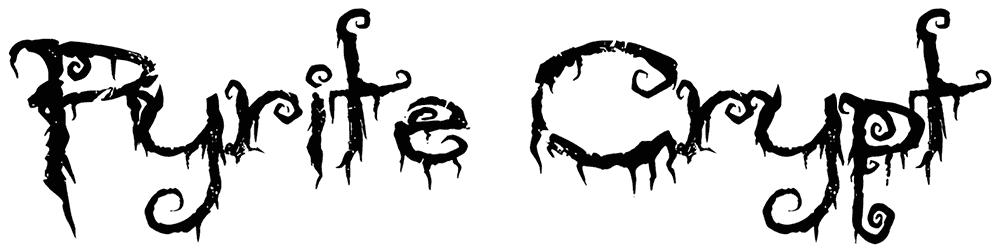
Pyrite Crypt Font
If you are looking for a well-designed horror font, the Pyrite Crypt might be an excellent choice. This witch font has a scary theme and shines in the viewer’s eye.
The Pyrite Crypt can be helpful in several cases, such as posters, movie titles, prints on T-shirts, and video games. This font’s letters seem to be melting fire, creating a frightening feeling. They seem memorable to your audience as their texture will remain in mind, so download them without hesitation.
A spooky themed font with spirals and droopy drip drops. You can download the clean version named “Pyrite Scrypt”.